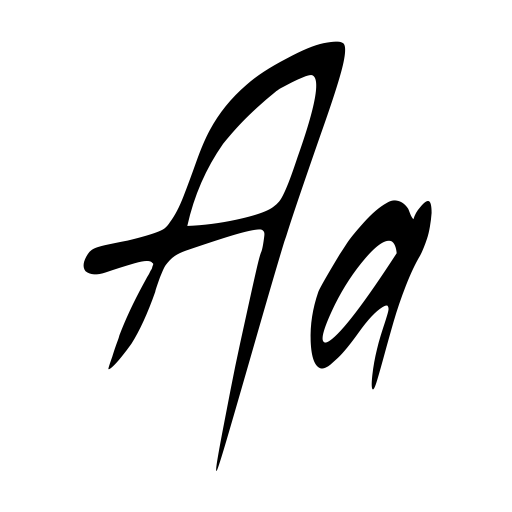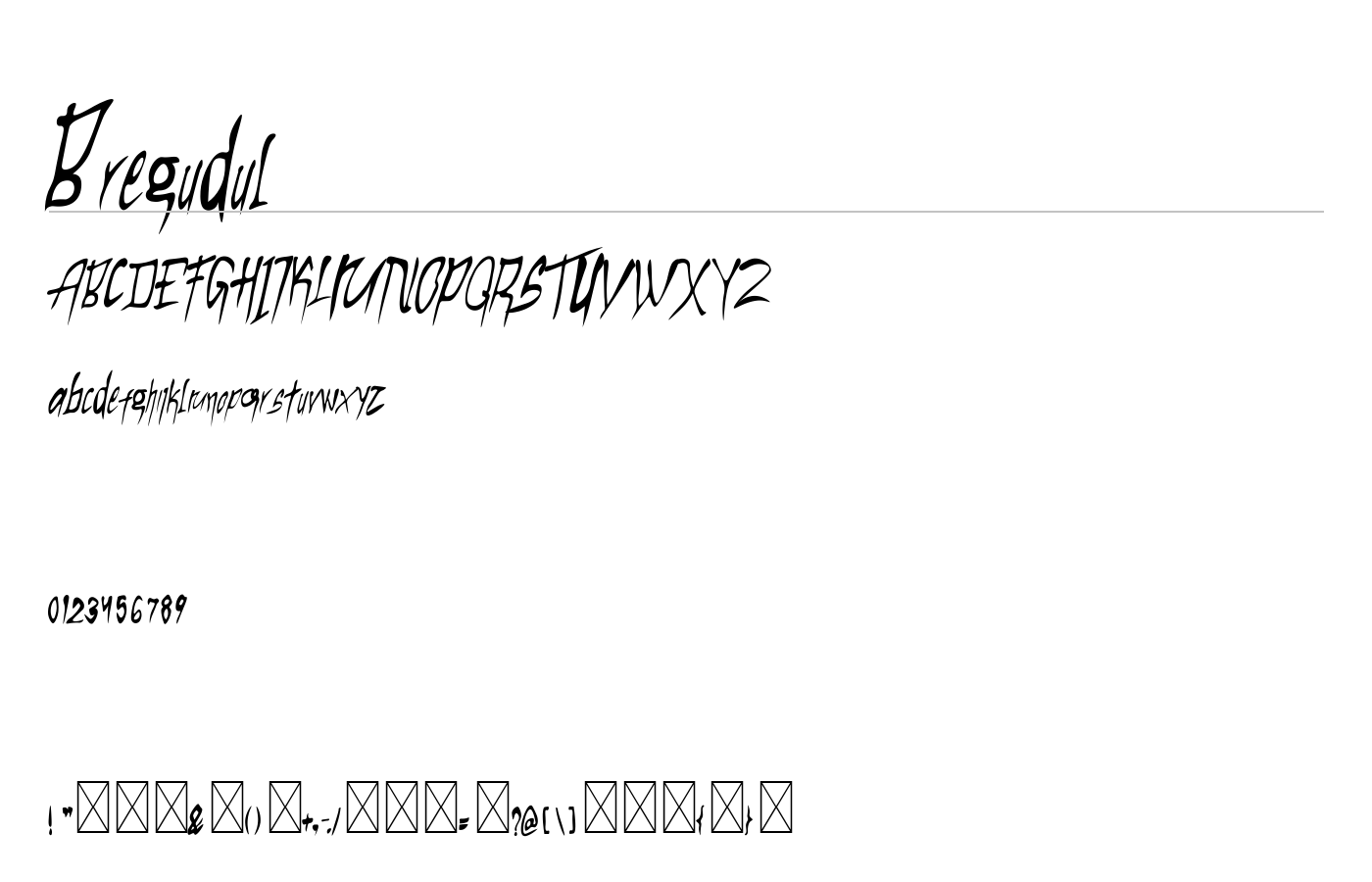
Bregudul is a narrow, expressive handwritten script font with a strikingly sharp and angular stroke style that conveys a dynamic and edgy personality. Its tall, slender letterforms with uneven baseline and distinctive flourishes give it a modern, artistic flair, making it ideal for creative headlines, logos, or branding seeking a bold, unconventional look. This font works best in projects where a dramatic and personal touch is desired, especially in fashion, entertainment, or editorial design.
Bregudul Font